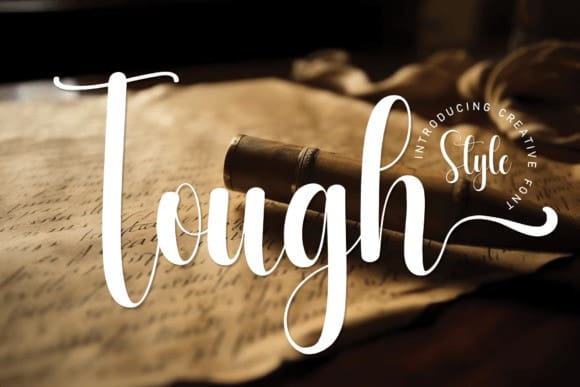
Tough Script Font
Tough Script Font is an elegant script font. Its latest style letters are perfect for wall displays, wedding invitations, social media post logos, advertisements, product packaging, product designs, labels, photography, watermarks, invitations, stationery, and any project that requires a personalised touch.